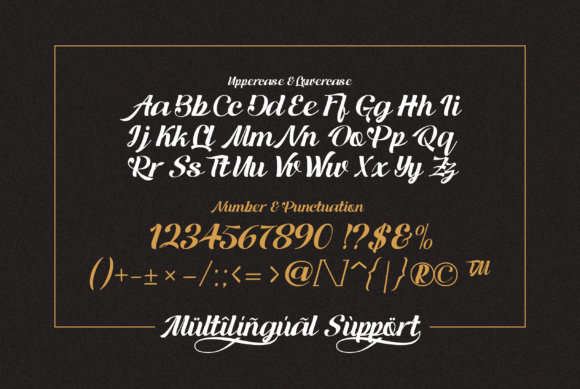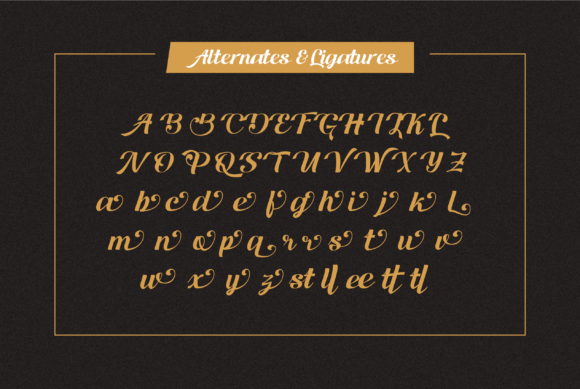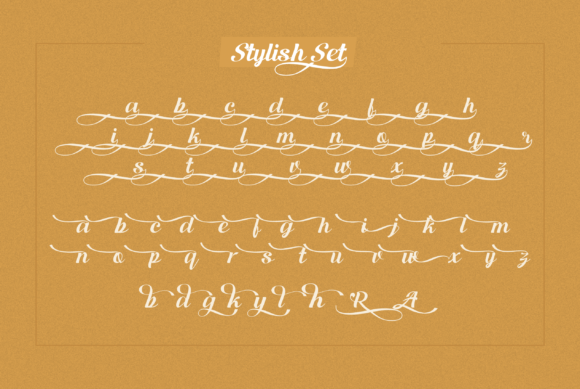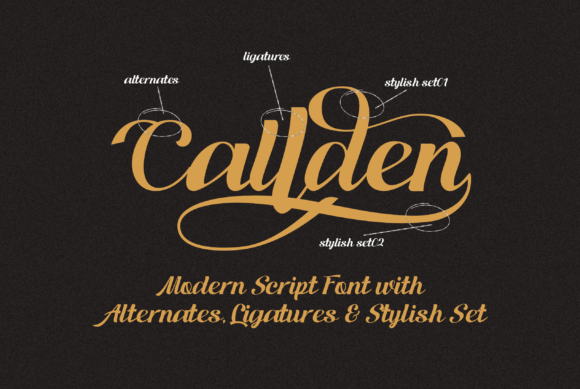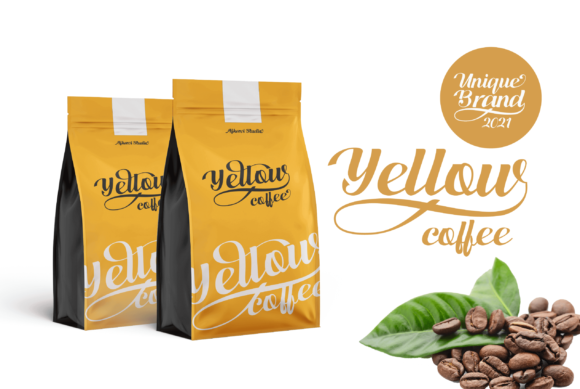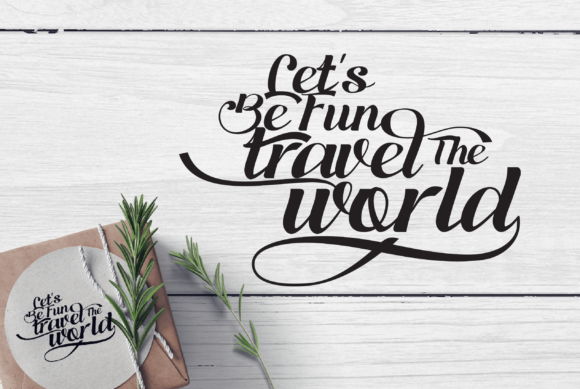
Introduction to Ranup Font
Have you ever stumbled upon a beautiful design that immediately sparks your creativity? For me, it was a stunning Instagram post with elegant calligraphy that I just couldn’t get out of my head. I wanted to replicate that magic in my own creative project, but I needed the right tool to bring my vision to life. That’s where the Ranup Font comes in – a high-quality, magical script font that will elevate any design to new heights.
As a designer, you understand the importance of having a versatile and high-quality design resource at your fingertips. The Ranup Font is exactly that – a free download that’s perfect for a variety of creative projects, from Instagram posts to DIY crafts. With its transparent background and elegant script, this font is sure to add a touch of sophistication to any design.
Whether you’re a seasoned designer or just starting out, the Ranup Font is a valuable addition to your design toolkit. Its unique blend of elegance and playfulness makes it an ideal choice for a wide range of creative projects, and its high-quality design ensures that your work will always stand out from the crowd.
Key Features of Ranup Font
- High-quality design resource suitable for various creative projects, including graphics and digital art.
- Features a transparent background, allowing for effortless layering and customization in design applications.
- Designed with precision, this font boasts a crisp resolution of 300 DPI, ideal for high-resolution printing and digital displays.
- Unique characteristics include a bold, modern aesthetic and a versatile font size range, accommodating various text requirements.
- Perfect for designers seeking a free, high-quality font to elevate their creative project, be it a logo, poster, or infographic.
Honest Review: Ranup Font
I recently had the chance to work with the Ranup Font, and I must say it’s been a delightful experience. The font is perfect for any creative project that requires a unique touch. One of the standout features of this font is its high quality design, which makes it perfect for printing or using in digital designs. The transparent background is also a big plus, allowing for seamless integration into any design.
- ✨ Unique and modern design style
- ✨ Perfect for creative projects, such as branding and advertising
- ✨ High quality design that looks great in both digital and printed formats
However, I did encounter a few limitations while using the font:
- ⚠️ Limited character set, which may be a problem for some users
- ⚠️ Not all browsers or devices support the font’s unique design style
Overall, I’m impressed with the Ranup Font and would highly recommend it as a design resource for any creative project. The unique design style and high quality make it a great addition to any design collection.
Ranup Font
The Ranup Font is a versatile, high-quality design resource ideal for creative projects. With its transparent background, it can be easily integrated into various design platforms.
Experiment with different font sizes and styles to achieve the desired look. Combine the Ranup Font with other design elements to create visually appealing and creative projects.
The Ranup Font is suitable for a wide range of design projects, including graphics, logos, and digital marketing materials. Its transparent background makes it ideal for overlays and text-based designs.
The Ranup Font is a versatile design resource that can be used in a variety of creative projects, including logos, branding materials, and digital products. It’s perfect for designers who want to add a touch of elegance and sophistication to their work. With its high-quality design and transparent background, the Ranup Font is an excellent choice for designers looking to elevate their creative project.